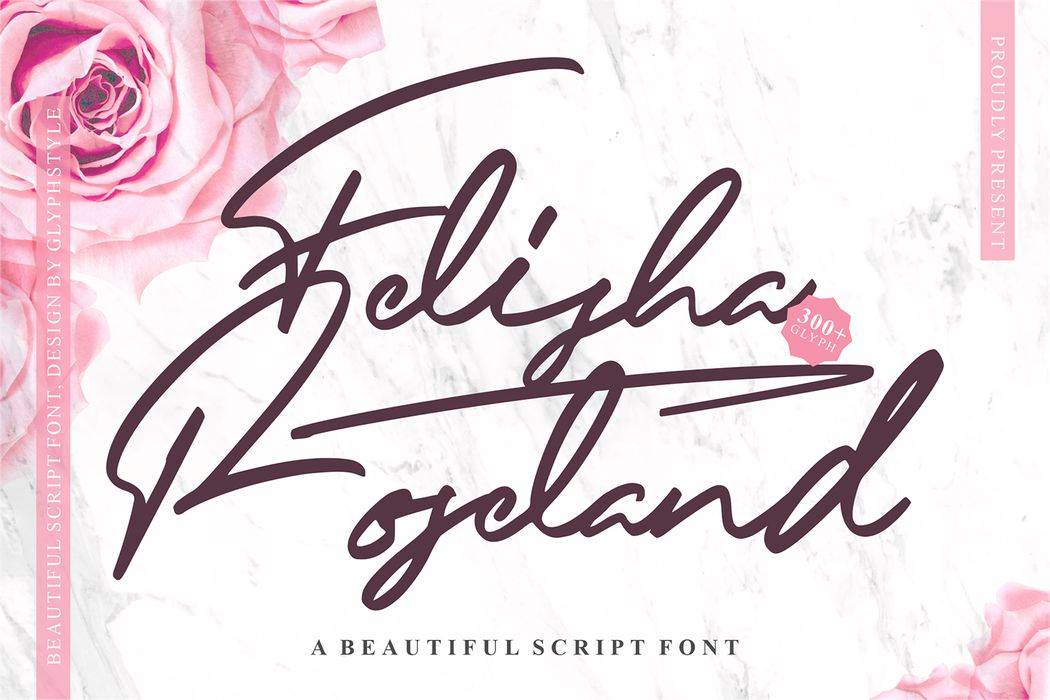
Felisha Roseland is a stylish, handwritten script font characterized by its elegant, flowing letterforms with a natural, personal touch. Its thin strokes and cursive style convey a sophisticated yet approachable feel, making it ideal for branding, invitations, and fashion-related designs where a graceful, refined look is desired. This font works beautifully in logos and headlines, adding a modern, artistic flair without sacrificing readability.
Felisha Roseland Font
About Felisha Roseland Font